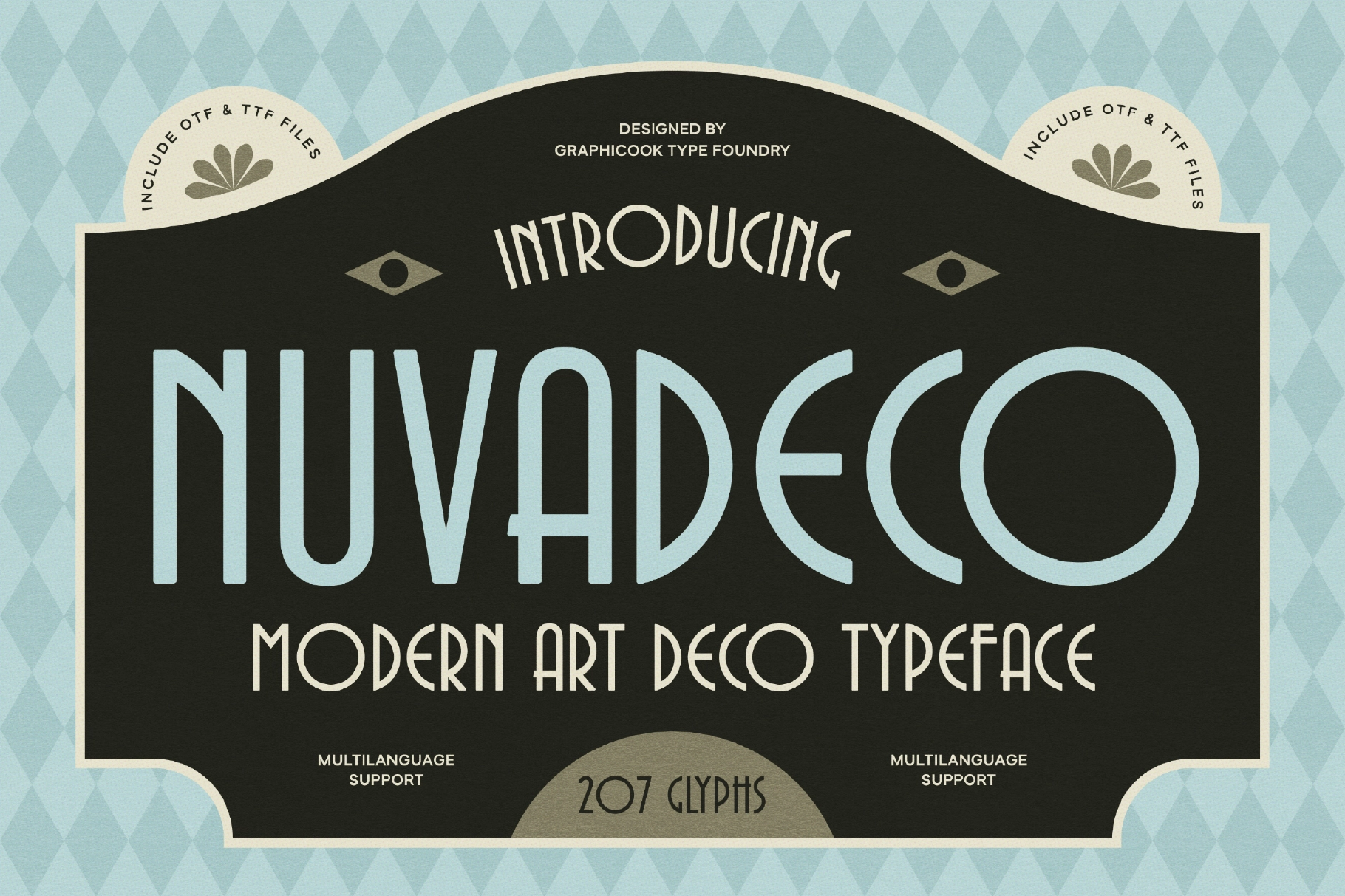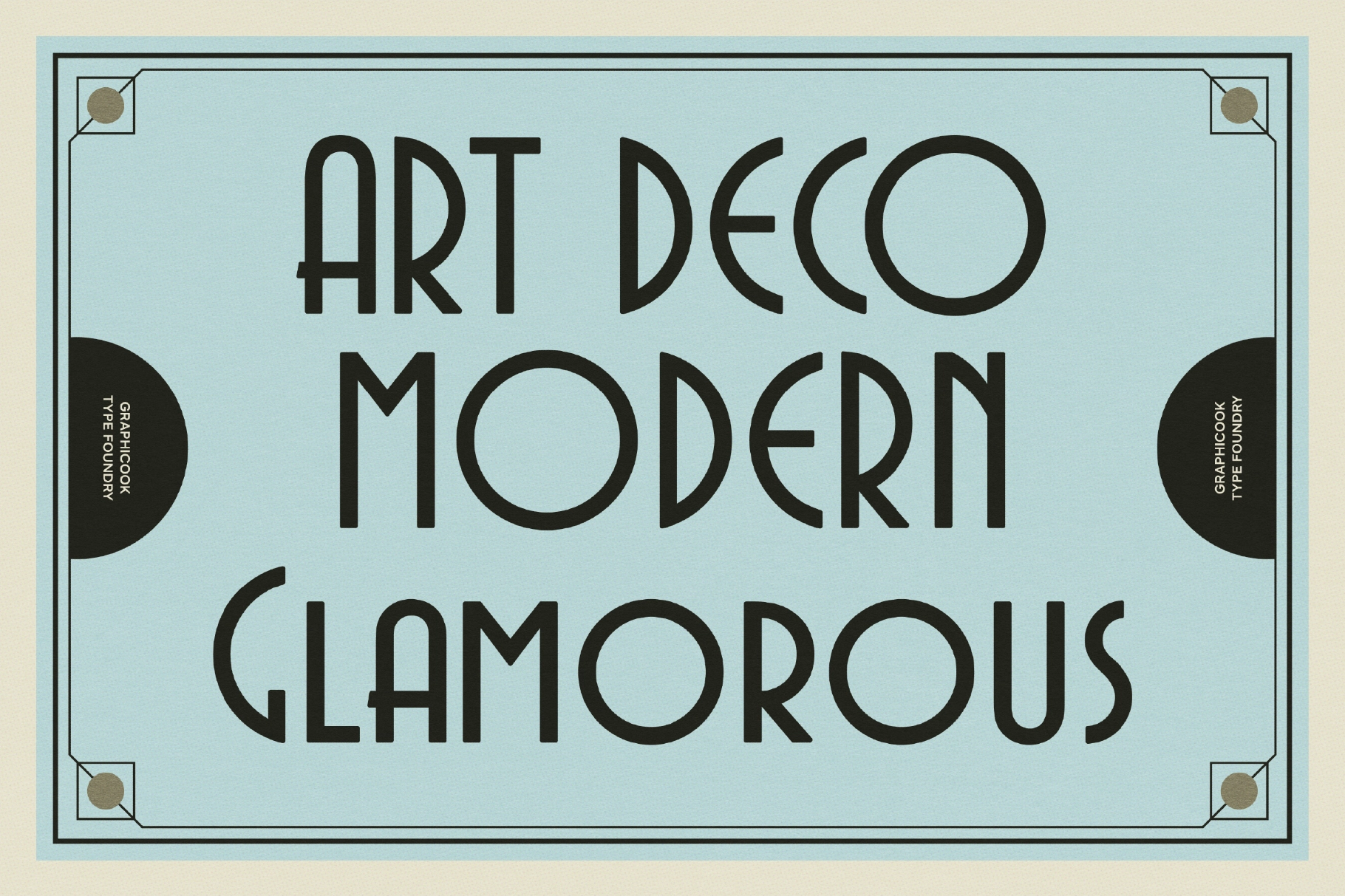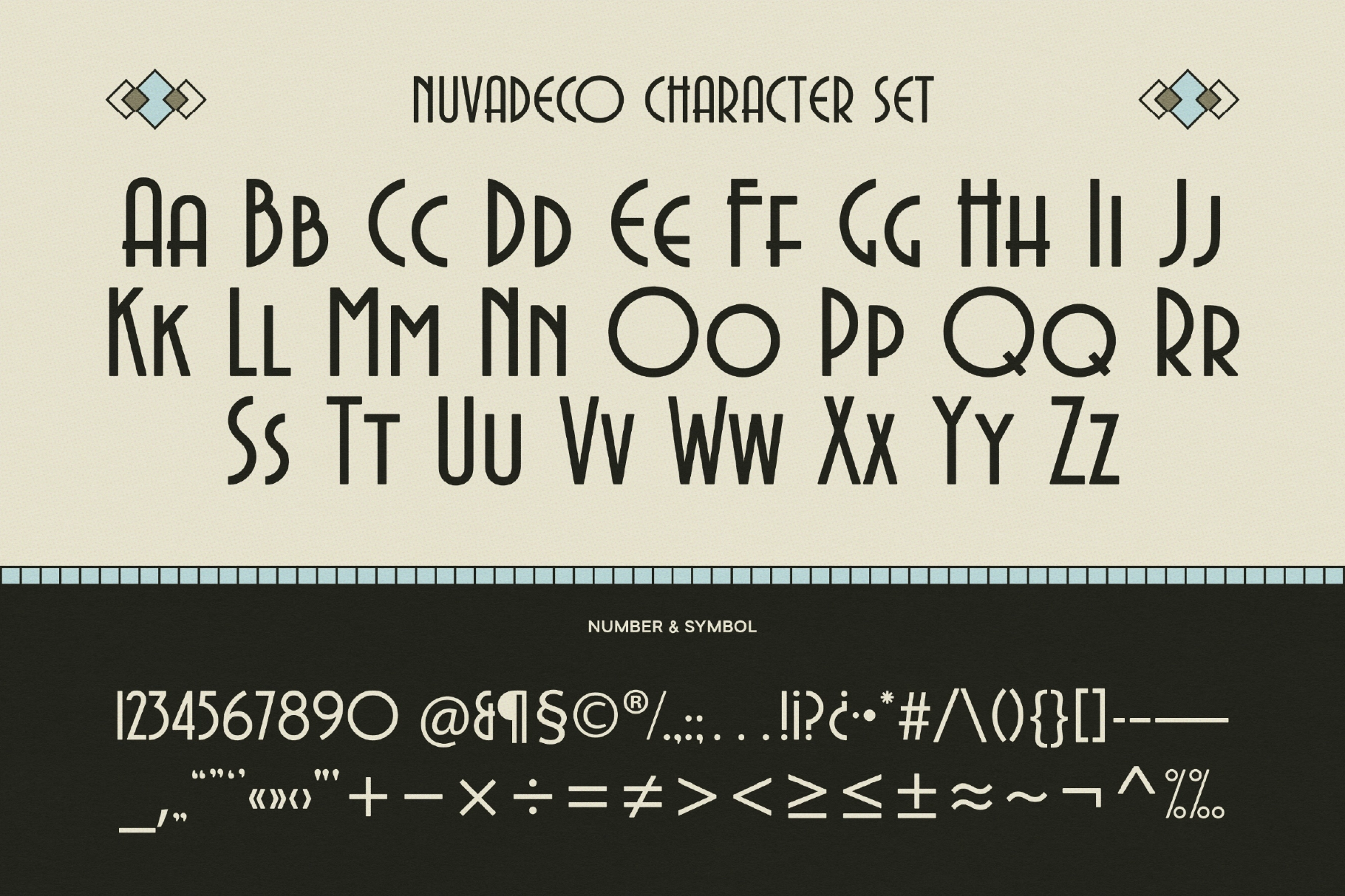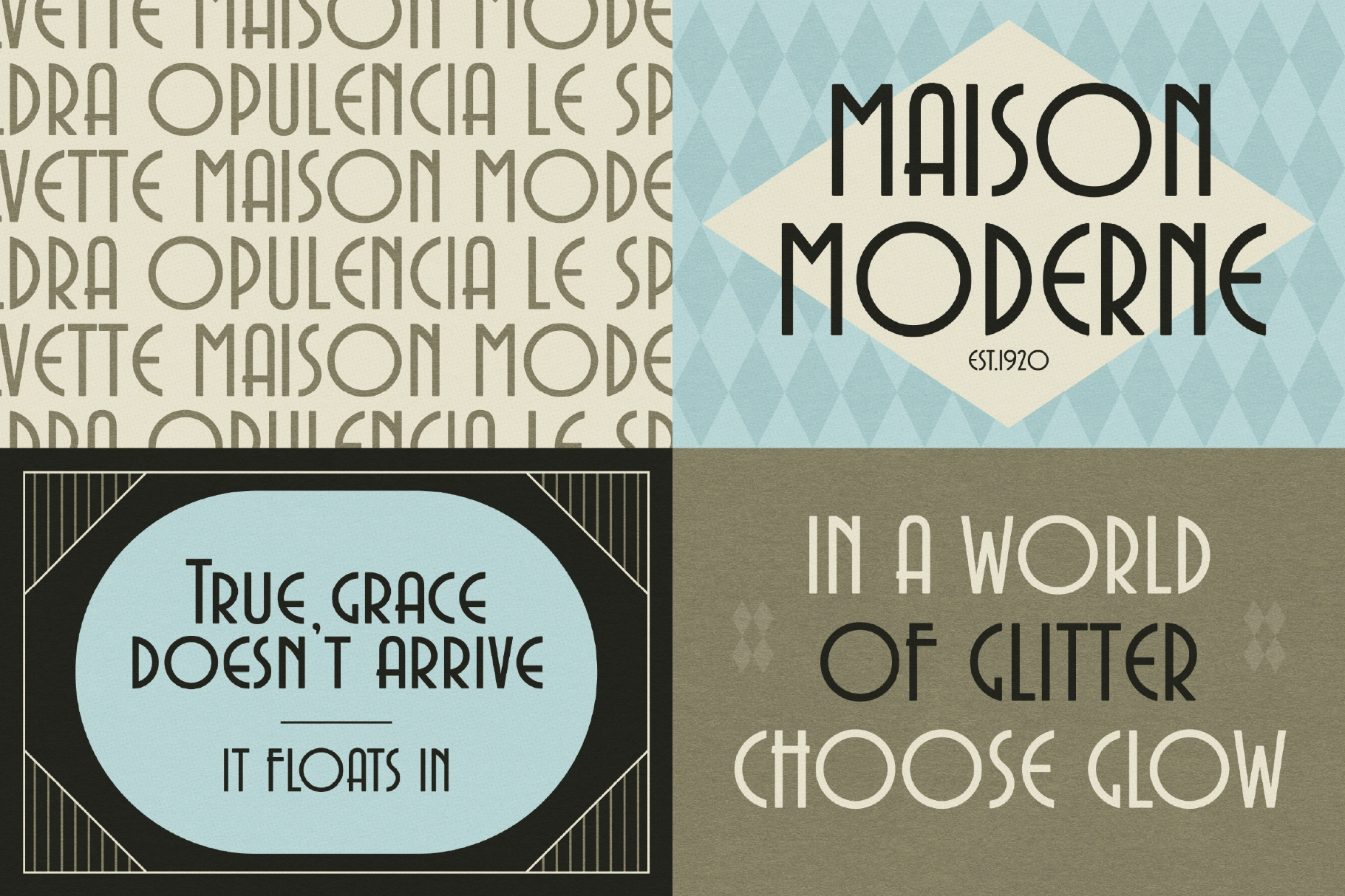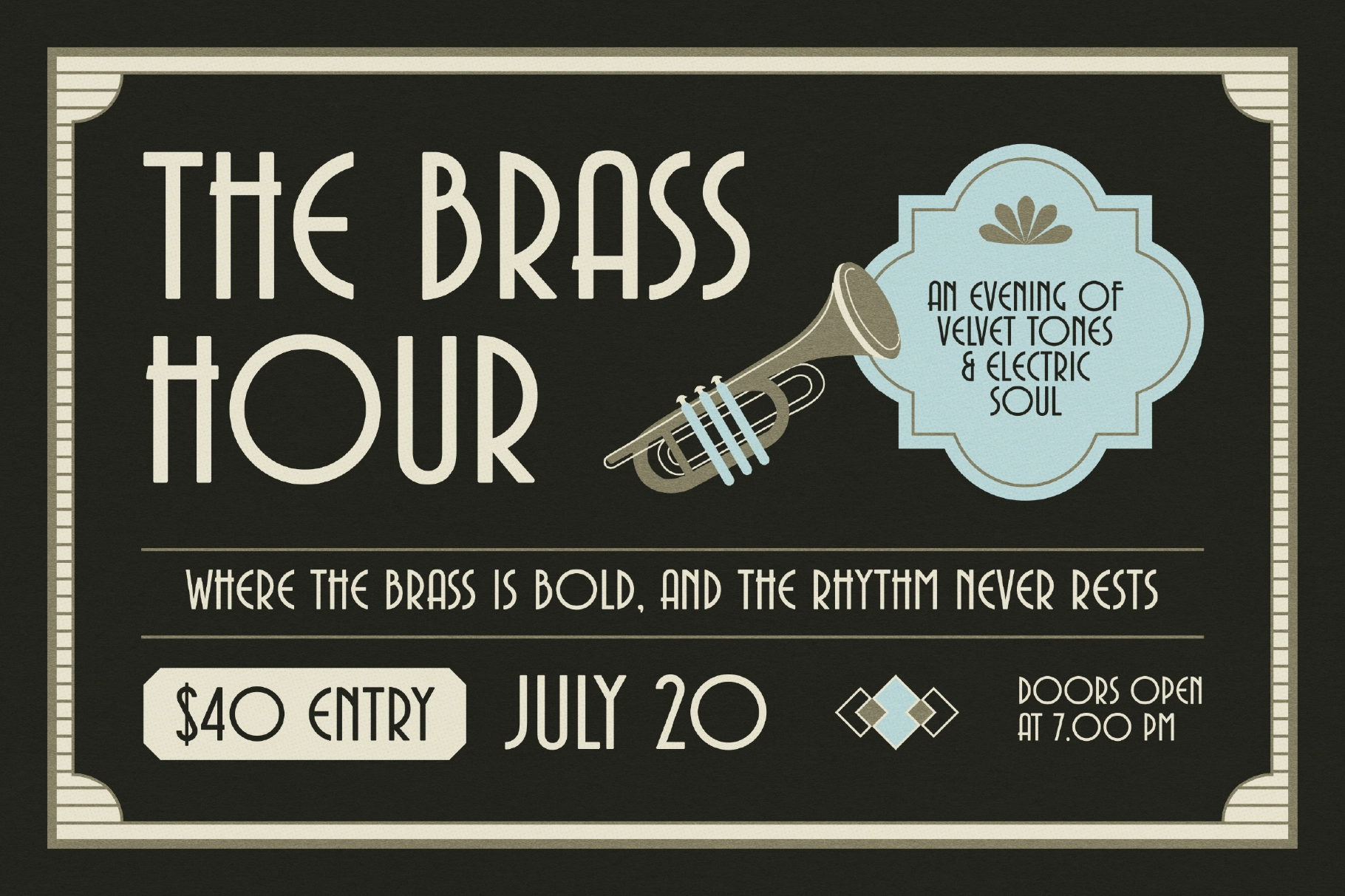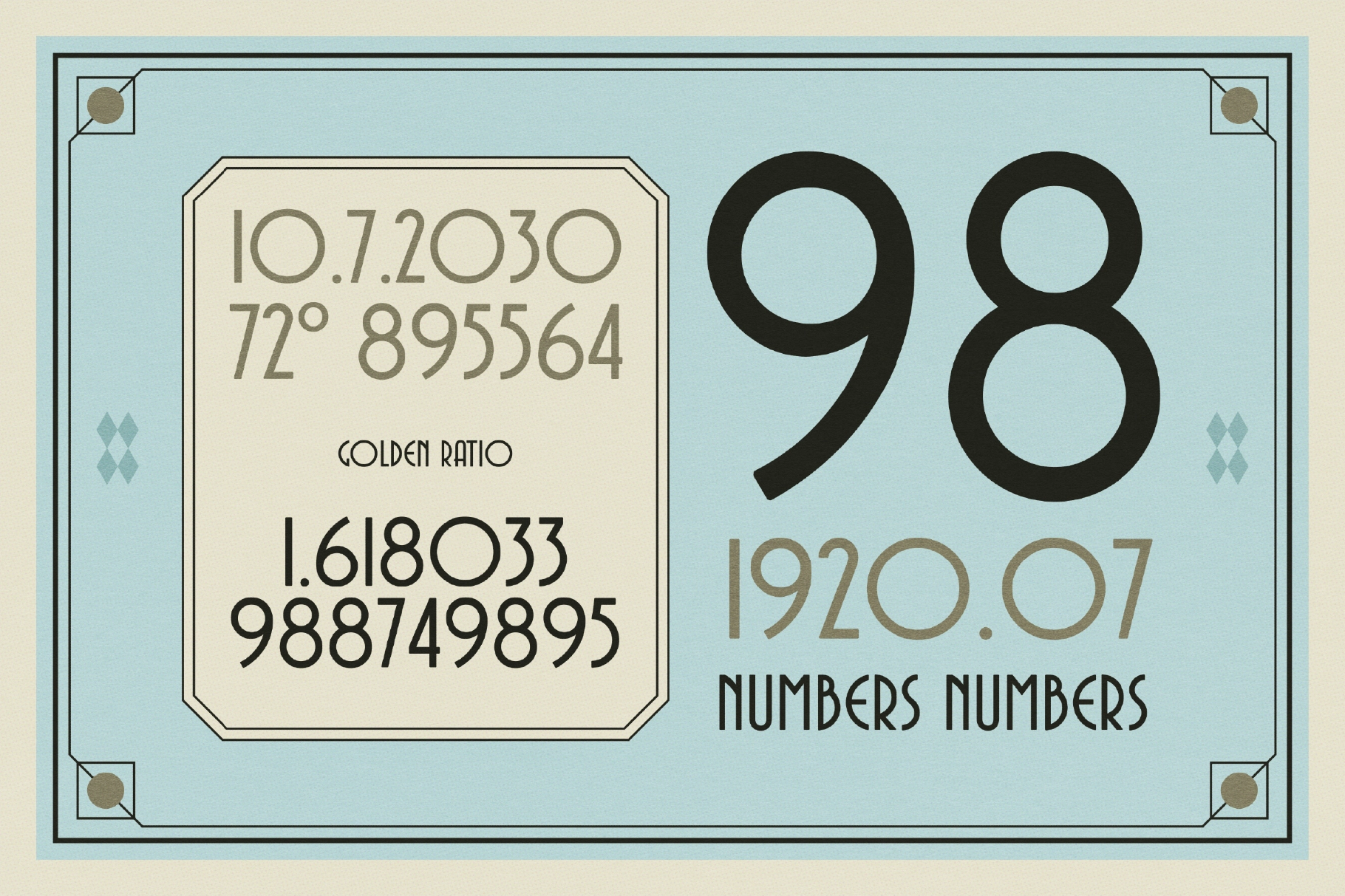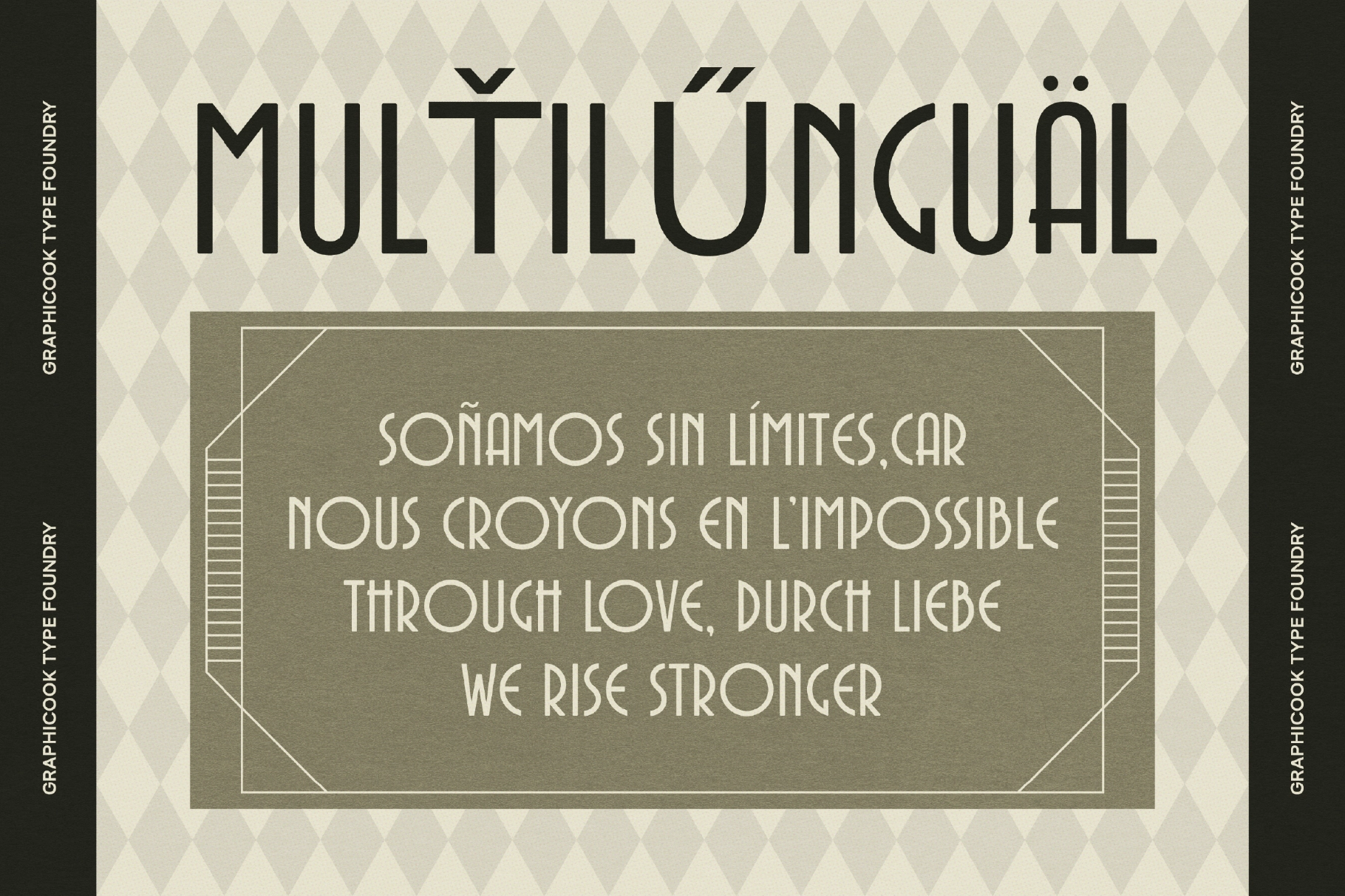
Nuvadeco Font
Nuvadeco is an Art Deco-inspired font defined by its precise geometric shapes and refined style. It radiates timeless elegance, making it well-suited for branding, packaging, editorials, and high-end design work.